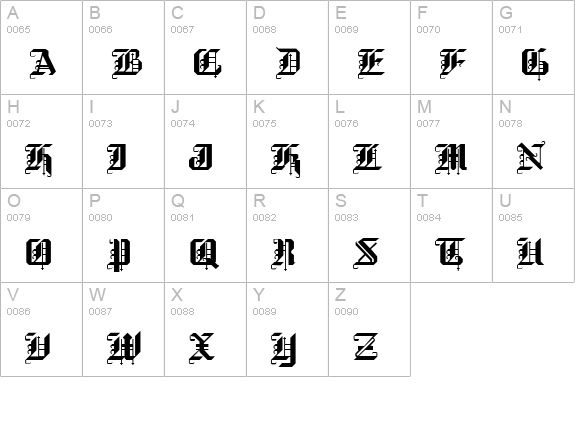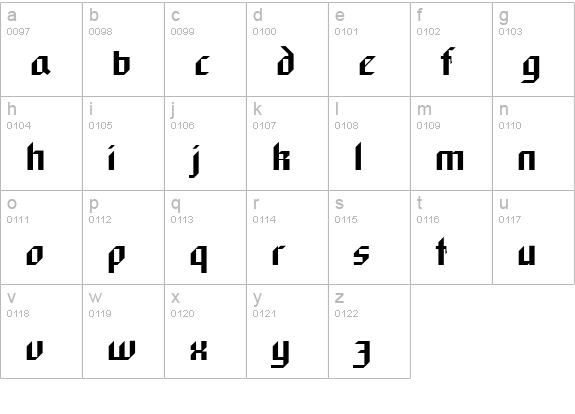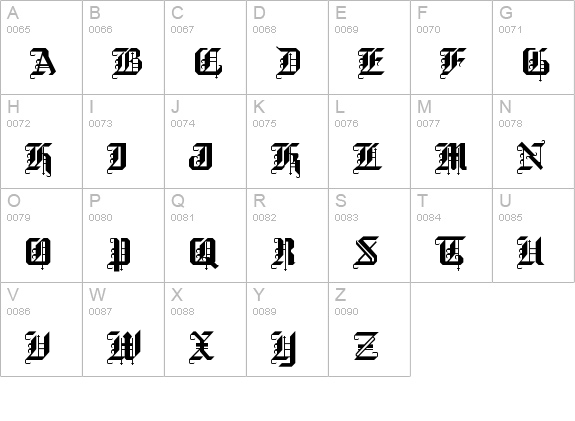
Kolumbus Font Details
Kolumbus font is a versatile and modern typeface that effortlessly combines elegance with readability. Its clean lines and balanced proportions make it perfect for a wide range of design projects, from branding to editorial design. The sleek curves and sharp angles of Kolumbus font exude sophistication and style, making it a popular choice among designers looking to make a statement. What sets Kolumbus font apart is not just its stunning aesthetics, but also the fact that it is available for free download at FontsMarket.com. This means that you can easily access this high-quality font without any cost, making it a valuable addition to your font library. Whether you are working on a personal project or a client's design brief, Kolumbus font is sure to elevate your work and leave a lasting impression. Download Kolumbus font today from FontsMarket.com and experience the creative possibilities that this exquisite typeface has to offer. Let Kolumbus font guide your design journey and unlock new opportunities for expression and visual impact.